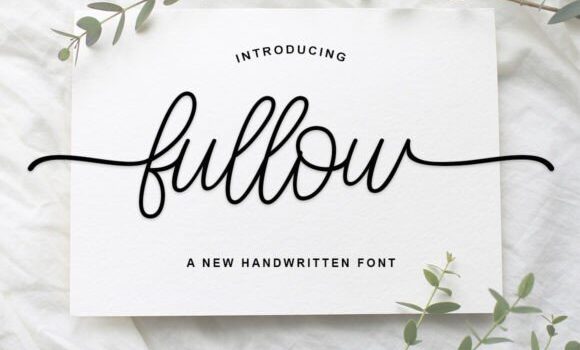
fullow
Fullow Font – Free Download Introduction to Fullow Font Fullow Signature is a lovely font that mimics the elegance of a personal signature. 📸 Preview Gallery 6 images 📌 Product Name Fullow Font 👤 Author IM Studio 📂 Category Explore